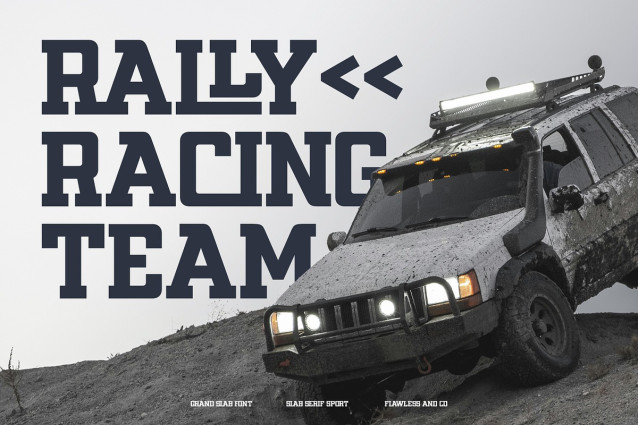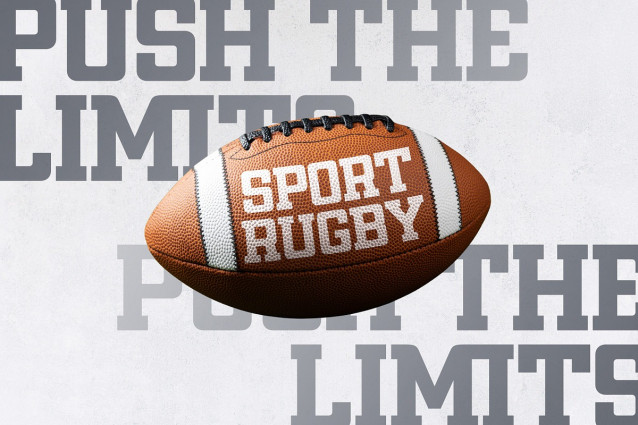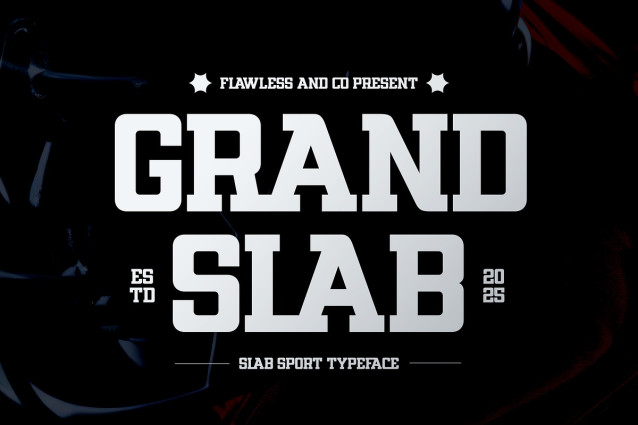
Grand Slab Font
Grand Slab Font is a bold and powerful slab sport typeface designed to capture the energy, strength, and determination of athletic performance. With its strong slab serifs, solid structure, and commanding presence, this font delivers impact and authority in every design. Built for sports branding, dynamic posters, and statement logos, Grand Slab embodies the grit and intensity of competition while staying versatile and stylish.